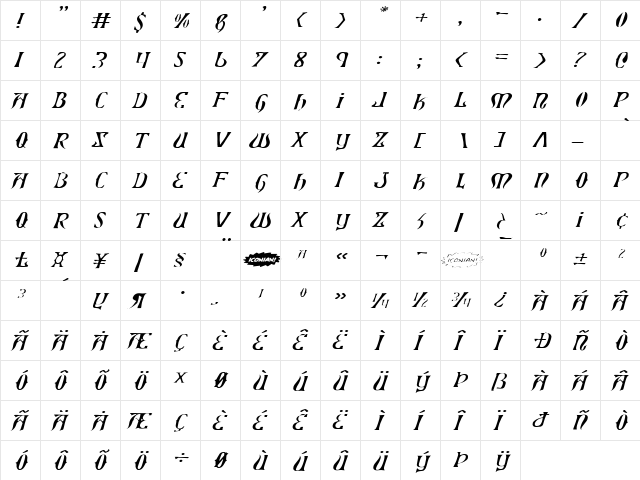
Xiphos Expanded Light Italic Expanded Light Italic
Design Context for Xiphos Expanded Light Italic Typeface
Xiphos Expanded Light Italic is a composed and adaptable typeface that performs quietly and consistently across a wide range of design contexts. The dynamic lean of this cut emphasises speed and emphasis in any layout. The delicate stroke weight brings airiness and refinement to layouts.
Pro Tip: Use Xiphos Expanded Light Italic for emphasis, pull quotes, and subheadings where its slanted energy can add rhythm to the layout.